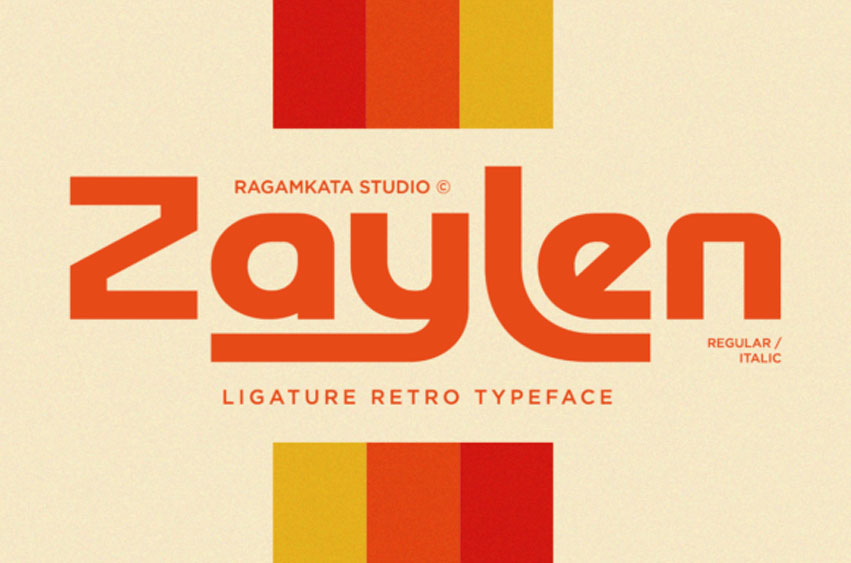
Zaylen Font
Zaylen Font is a bold ligature retro typeface inspired by vintage typography with a modern twist.
Featuring smooth curves, thick strokes, and distinctive ligatures, Zaylen delivers a strong visual impact while maintaining a playful and stylish character. Its unique letter connections create a seamless flow that feels both nostalgic and contemporary.
Designed to stand out, Zaylen works beautifully for branding, logos, posters, packaging, apparel, headlines, and editorial designs. The font includes Regular and Italic styles, allowing flexibility for expressive layouts and eye-catching compositions.